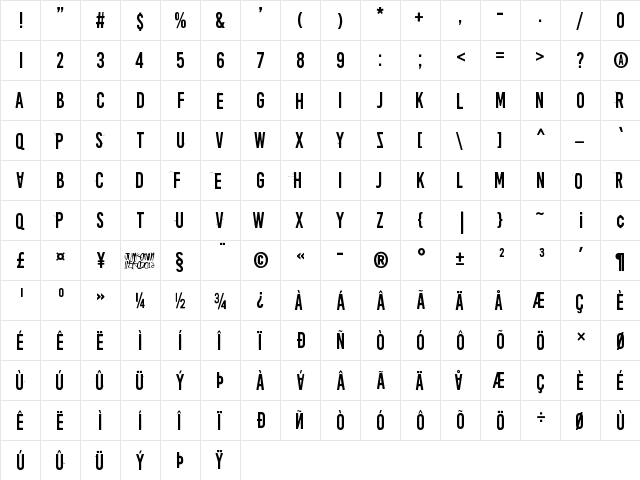
April Fools' Day Silly vrs Regular
Design Context for April Fools' Day Silly vrs Typeface
April Fools' Day Silly vrs offers clean, dependable letterforms without strong stylistic allegiance, making it a practical choice for designers who need flexibility.
Pro Tip: Use April Fools' Day Silly vrs in both headline and body roles to test its range before committing to a single application.